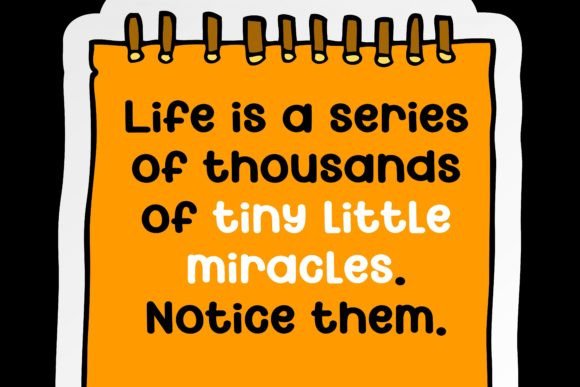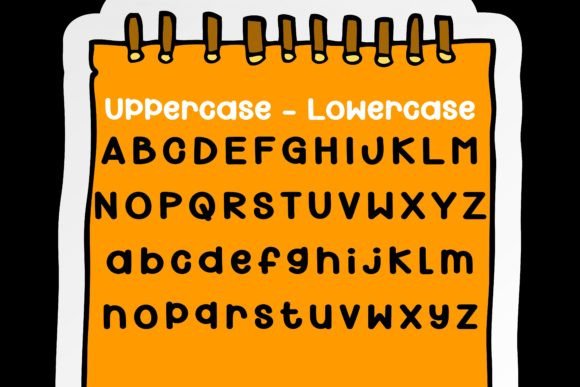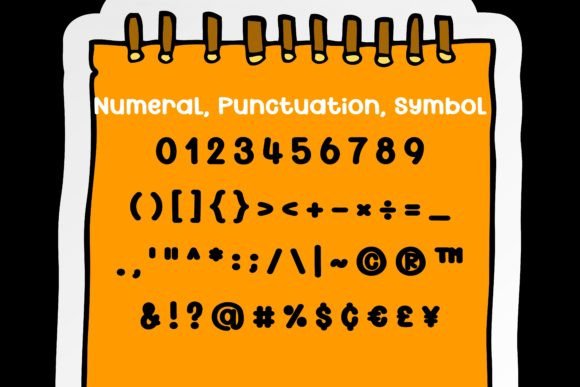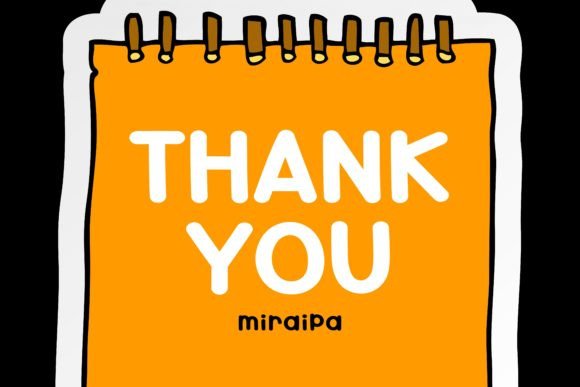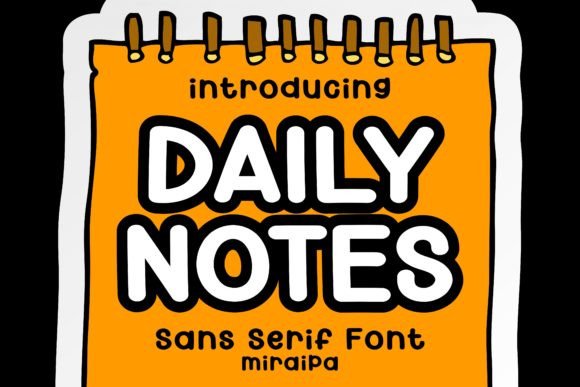
The Daily Notes Font: A Friendly and Approachable Sans-Serif for Your Design Projects
I still remember the struggle of working on a branding project for a new coffee shop, determined to create a warm and welcoming atmosphere. The challenge? Finding the perfect font that would convey friendliness and approachability. I scoured through countless options, but none seemed to fit the bill. That was until I stumbled upon the Daily Notes font. In this article, I’ll share my experience with this versatile sans-serif font and explore its features, usage, and alternatives.
An Honest Review of Daily Notes Font
- ✅ Clean lines and curves that create a visually appealing typeface
- ✅ A touch of playfulness that adds warmth and personality to any design
- ✅ Easy to read, making it perfect for body text and captions
- ✅ Highly versatile, suitable for various design projects, from branding to web design
While Daily Notes is an excellent font, it’s not without its limitations. For instance:
- 🤔 It may not be the best choice for very large headings or titles, as it can lose some of its elegance
- ⚠️ Some users might find the font too similar to other popular sans-serif fonts, making it less distinctive
- Experiment with OpenType features, such as ligatures and stylistic alternates, to add visual interest
The Backstory of Daily Notes Font
Daily Notes was designed with the intention of creating a friendly and approachable sans-serif font. The designer aimed to craft a typeface that would be perfect for everyday design projects, from branding and packaging to web design and social media. By combining clean lines and curves with a touch of playfulness, Daily Notes was born.
| Author | miraipa |
| What is the Daily Notes font best suited for? | Daily Notes is perfect for friendly and approachable design projects, such as branding, packaging, web design, and social media. |